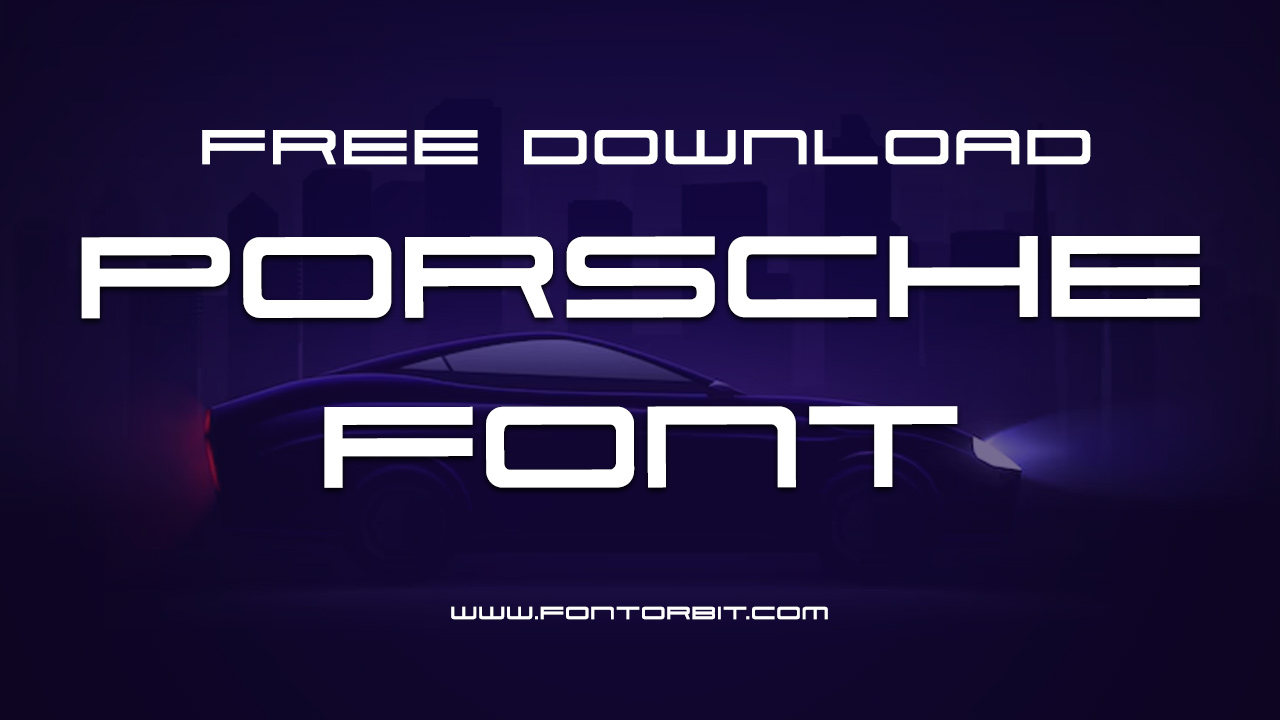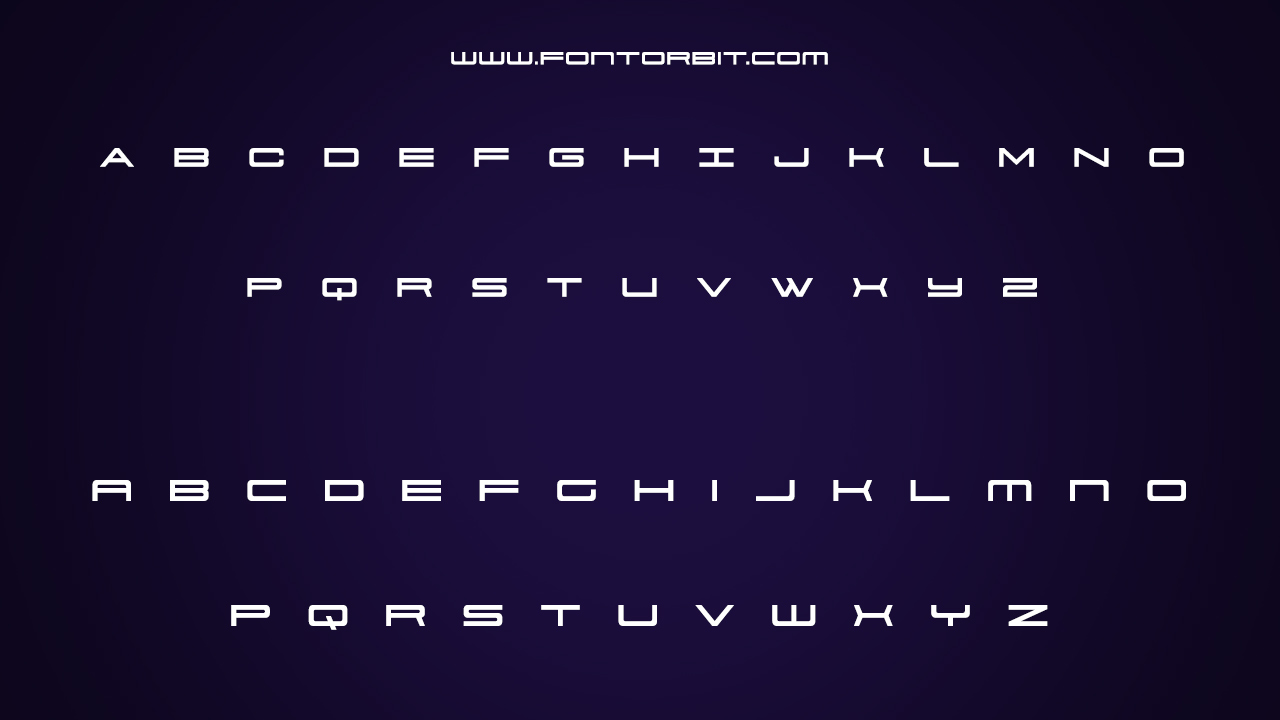
The Porsche logo font, known as 911 Porscha, mirrors the iconic design of the Porsche emblem.
This typeface is crafted to reflect the brand’s sophisticated and powerful image, offering a close approximation to Porsche’s distinctive lettering. Created to emulate Porsche’s refined aesthetic. Iconian Fonts create the 911 Porscha Font.
The font’s design draws inspiration from the Porsche logo, featuring clean lines and a powerful presence that echoes the brand’s prestigious image.
The Porsche Font is ideal for automotive design, offering sophistication and strength for logos, marketing, and promotional materials. Its stylish, refined appearance suits industrial applications and enhances merchandise, adding a premium touch and aligning with Porsche’s high-end brand identity.
Whether for branding, promotional materials, or merchandise, this font offers a sophisticated alternative that enhances visual appeal and conveys a high-end image.
1.What Is The Porsche Font?
The Porsche Font, 911 Porscha, closely resembles the lettering in the Porsche logo, designed to reflect the brand’s elegant and powerful style.
2.Who Designed The Porsche Font?
Iconian Fontsto created the 911 Porscha Font to mirror the Porsche emblem’s sophisticated and bold design.
3.What Are The Key Features Of The Porsche Font?
It features a refined and bold style, closely mirroring the Porsche emblem’s elegant appearance, perfect for high-end branding and promotional use.
4.How To Use Porsche Font In Branding?
Utilize it for automotive branding, logo creation, and promotional materials to replicate Porsche’s distinctive and luxurious style.
5.What Are The Alternatives To The Porsche Font?
Similar fonts include Xenotron, Fireye GF 3, Nextwave, and BM Gaia A10, which offer refined and bold aesthetics similar to Porsche branding.